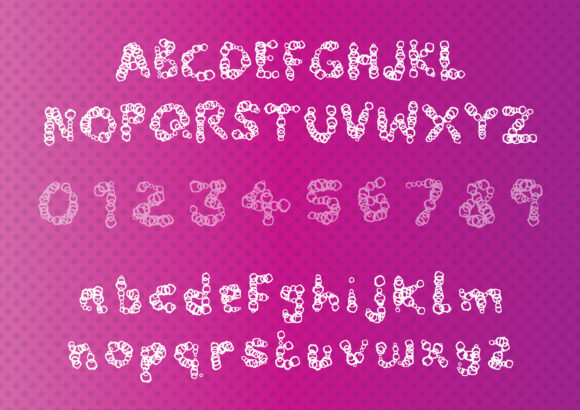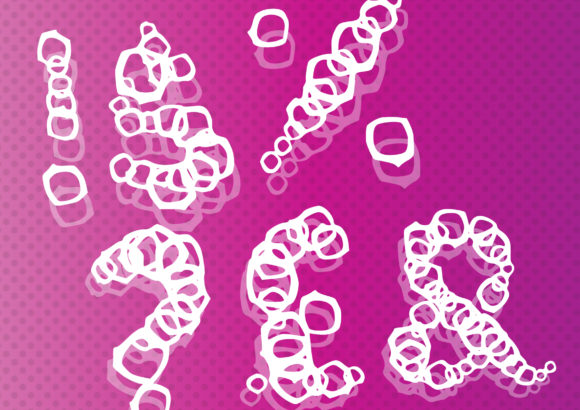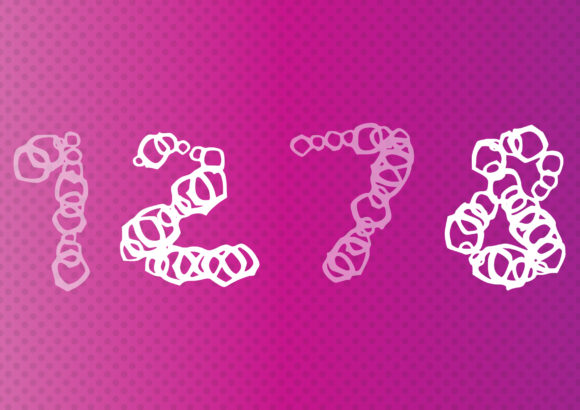
The Perfect Splash of Fun: Bubbles Font
Have you ever been stuck on a design project, struggling to find that one element that brings it all together? It’s like searching for a missing puzzle piece – until the moment you stumble upon it, and everything clicks into place. For many designers, that moment comes when they discover the perfect font to elevate their work. For some, that font is the Bubbles Font.
This fun display font is designed to add a playful touch to your designs. Whether you’re creating a children’s book, a party invitation, or a social media graphic, Bubbles Font is the perfect way to inject some whimsy and personality into your work. Its unique design makes it a valuable tool for designers looking to add some visual interest to their projects.
With the Bubbles Font, you can create designs that are both eye-catching and memorable. Its playful vibe is sure to engage your audience and leave a lasting impression. So why settle for a boring, generic font when you can add a splash of fun with the Bubbles Font?
Bubbles Font Key Features
- Font Style: A playful, handwritten font with rounded edges and bubbly texture, suitable for casual and creative designs.
- Unique Characteristics: The Bubbles Font features a unique texture that resembles hand-drawn bubbles, giving it a distinctive and eye-catching appearance.
Bubbles Font Review
I recently had the chance to work with the “Bubbles Font” and I must say it’s a mixed bag. On the one hand, ✨ I really like how playful and whimsical it looks, especially when used for titles and headings. The bubbly shape of the letters adds a touch of fun and personality to the text.
Another positive aspect is ✨ its versatility – it comes in a variety of weights and styles, making it suitable for a range of design projects, from children’s books to marketing materials.
However, there are a few limitations ⚠️ that I’d like to mention. Firstly, ⚠️ it can be a bit difficult to read at smaller font sizes, especially for body text. This is because the letters can become quite pixelated and lose their clarity.
Another ⚠️ issue is that the font can feel a bit overused, especially in certain design niches. This might make it less effective in certain contexts where you want to stand out from the crowd.
Overall, I’d say the “Bubbles Font” is a solid choice for playful and lighthearted designs, but it may not be the best option for more serious or professional projects.
- Strengths: playful and whimsical design, versatile and suitable for a range of projects
- Weaknesses: difficult to read at smaller font sizes, can feel overused in certain design niches
Tips for Getting the Most Out of the Bubbles Font
Use the Bubbles font to add a playful and whimsical touch to your designs.
Pair the Bubbles font with other fonts to create a unique and eye-catching design.
The Bubbles font is perfect for:
Children’s book illustrations
Party invitations and decorations
Food and beverage branding
Whimsical website designs
Alternatives to Bubbles Font for Designers
1. Comic Sans MS
Comic Sans MS is a fun and casual sans-serif font that is perfect for informal designs, children’s materials, and advertisements. It is often used to add a playful touch to designs. Compared to Bubbles Font, Comic Sans MS has a more casual and informal feel, but it lacks the elegant and sophisticated look of Bubbles Font.
Pacifico is a beautiful and elegant script font that is perfect for wedding invitations, quotes, and other creative designs. It is often used to add a touch of sophistication and elegance to designs. Compared to Bubbles Font, Pacifico has a more refined and elegant feel, but it lacks the playful and whimsical touch of Bubbles Font.
Great Vibes is a modern and elegant script font that is perfect for creative designs, quotes, and advertisements. It is often used to add a touch of sophistication and elegance to designs. Compared to Bubbles Font, Great Vibes has a more refined and elegant feel, but it lacks the playful and whimsical touch of Bubbles Font.